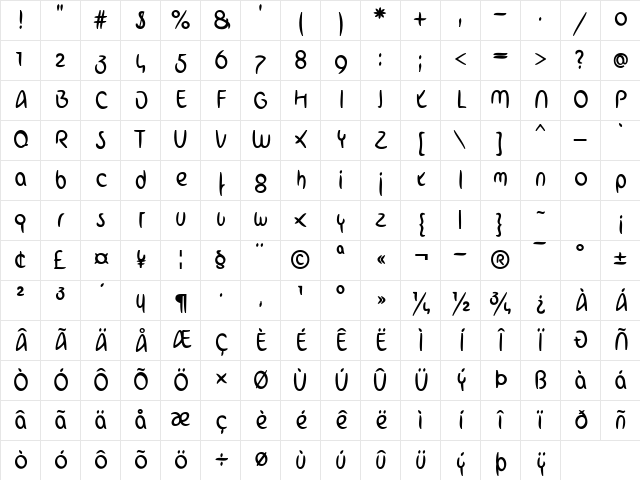
ArabStroke LT Regular Regular
Designer: Carichini
Design Context for ArabStroke LT Regular
ArabStroke LT Regular is a composed and adaptable typeface that performs quietly and consistently across a wide range of design contexts. Its slender proportions lend an understated elegance to any composition.